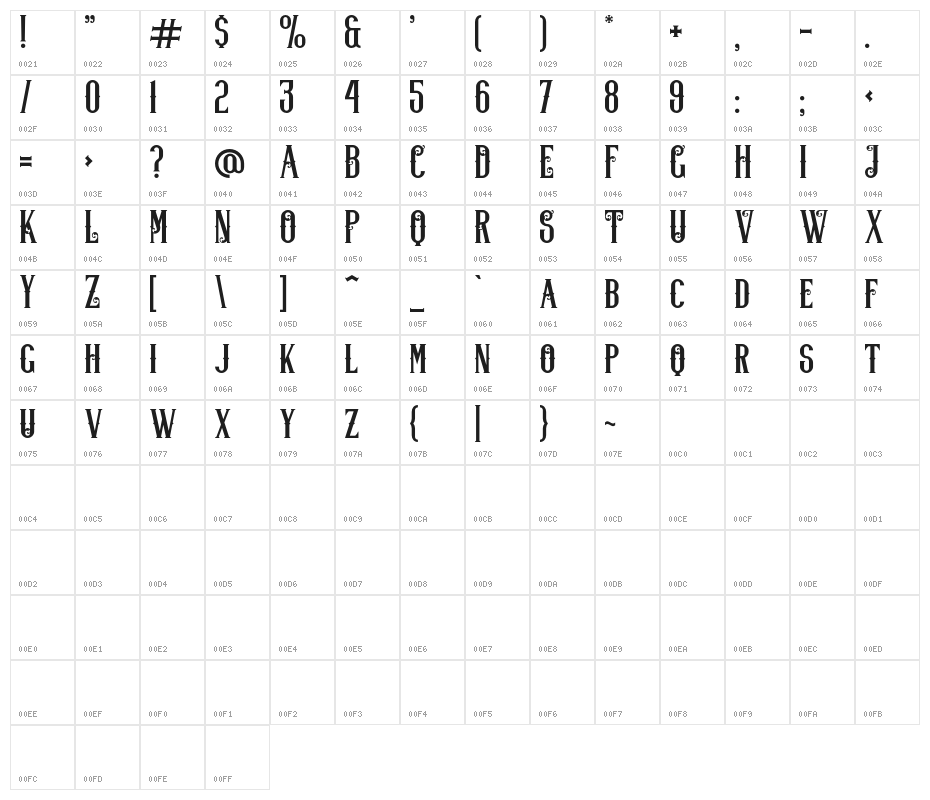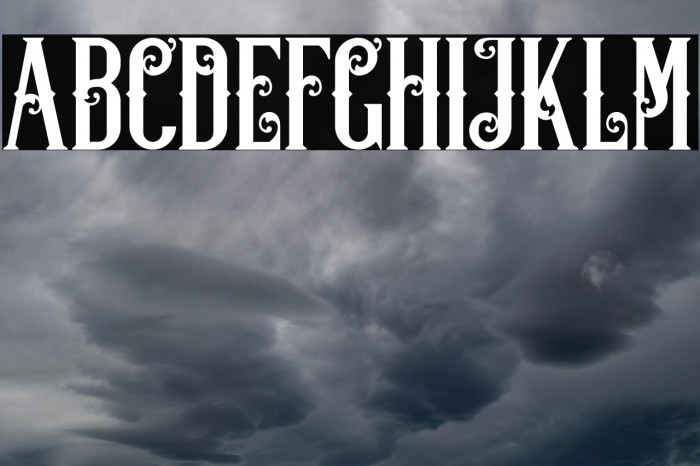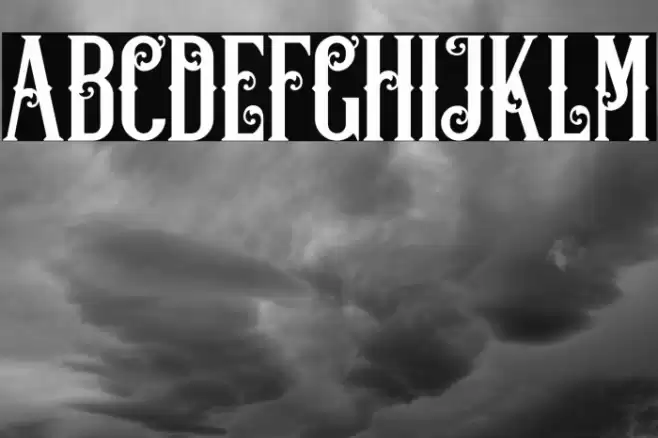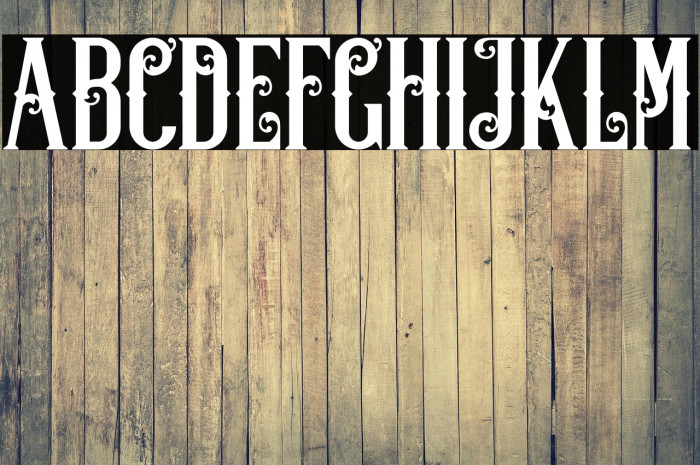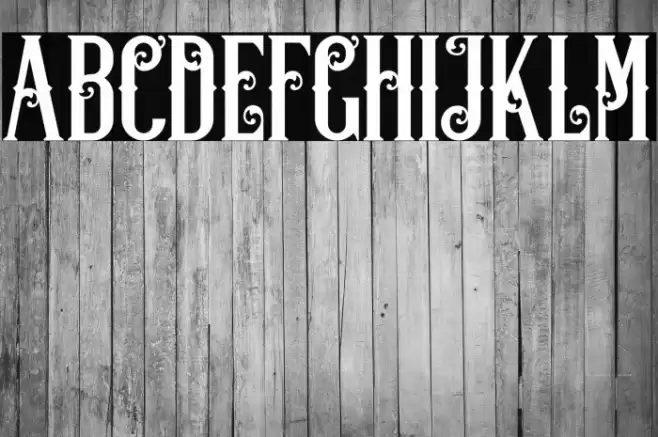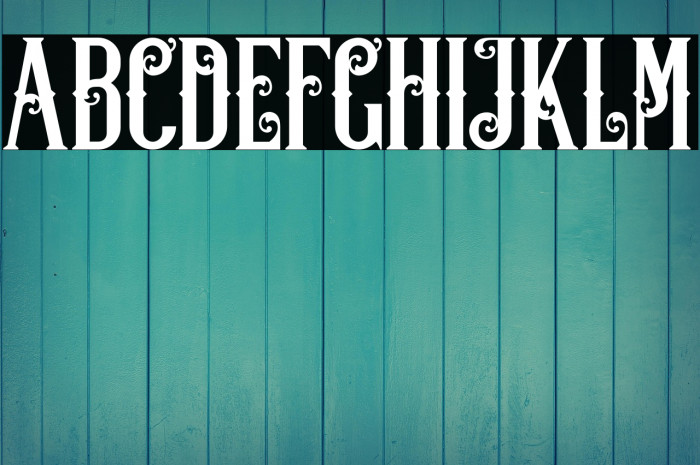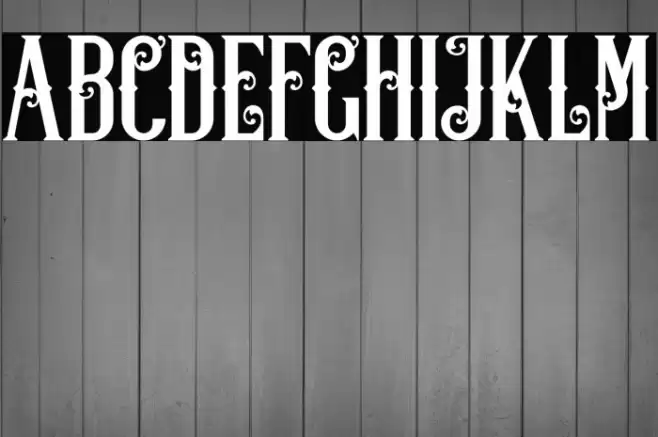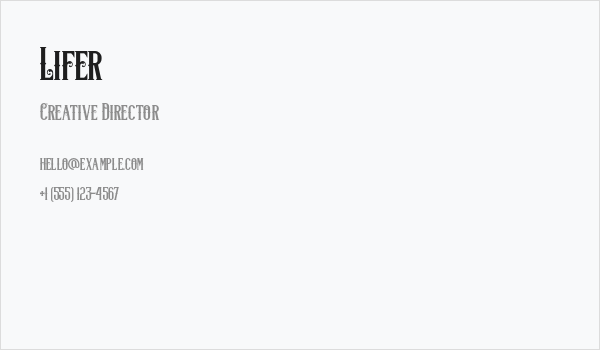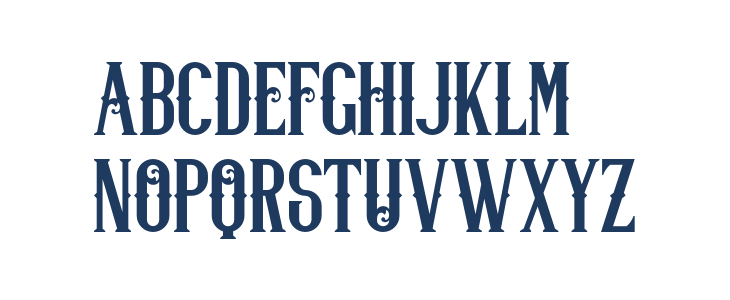
Lifer Font
Lifer Description
This font features a decorative and ornate style, characterized by its intricate swirls and embellishments on the stems of the letters. The uppercase and lowercase letters maintain a consistent height, creating a uniform appearance. The numerals are bold and prominent, matching the elaborate style of the alphabet. Special characters are equally ornate, adding a touch of elegance and flair. The overall design is reminiscent of vintage or Victorian aesthetics, making it suitable for projects that require a touch of sophistication and historical charm.
| Proposed Projects | Ideal for wedding invitations, vintage-themed posters, book covers, and branding that requires a classic and sophisticated look. |